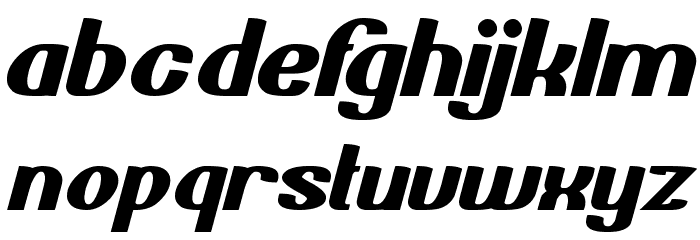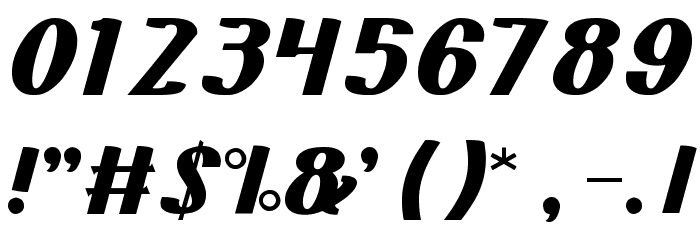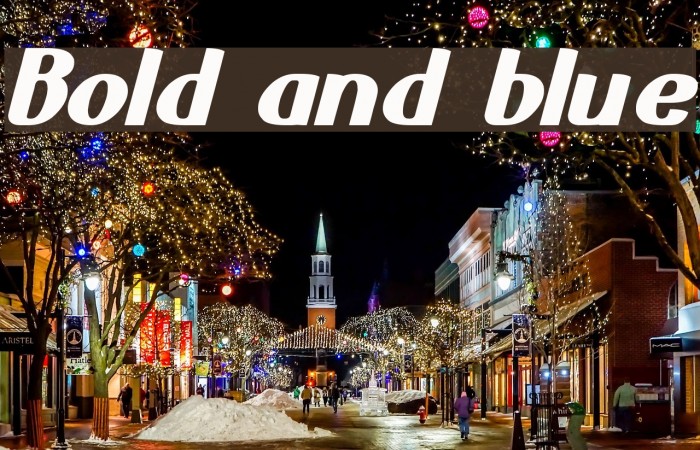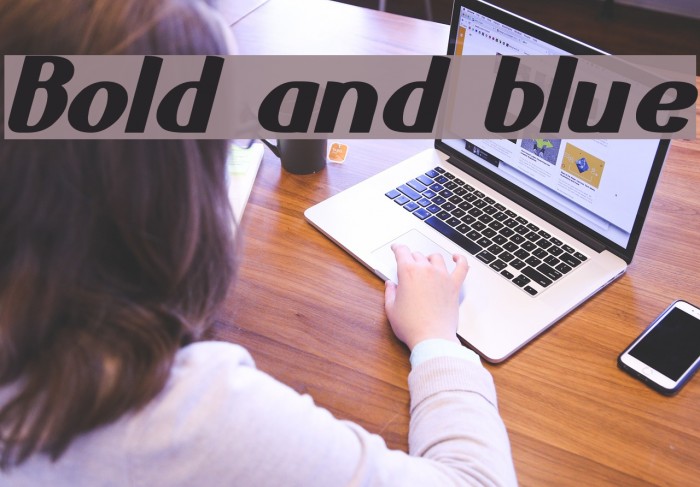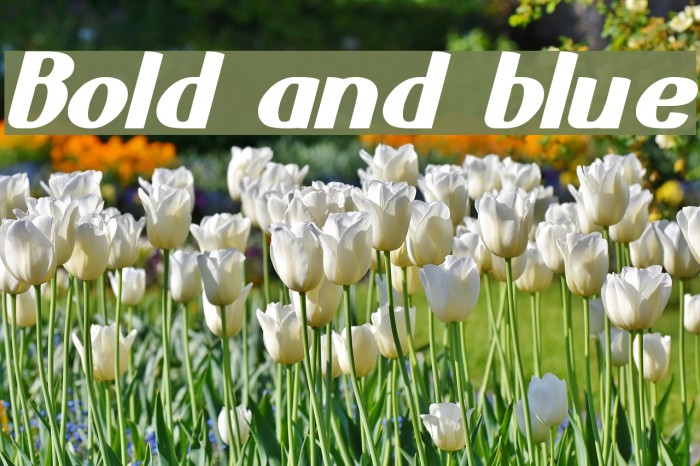
Bold and blue Font
This font features a bold and dynamic style with a slight slant, giving it a sense of movement and energy. The characters are thick and rounded, with a consistent stroke width that adds to its bold appearance. The uppercase letters are tall and commanding, while the lowercase letters maintain a similar weight, ensuring readability. Numbers and special characters are designed to match the overall boldness, making them stand out. The font's playful yet assertive style makes it suitable for attention-grabbing designs.
A bold, slanted font with rounded characters and consistent stroke width.
- Proposed Projects: Ideal for posters, headlines, branding, and advertising materials that require a strong visual impact.